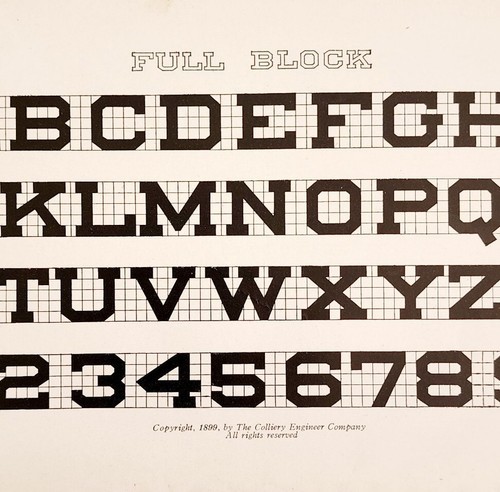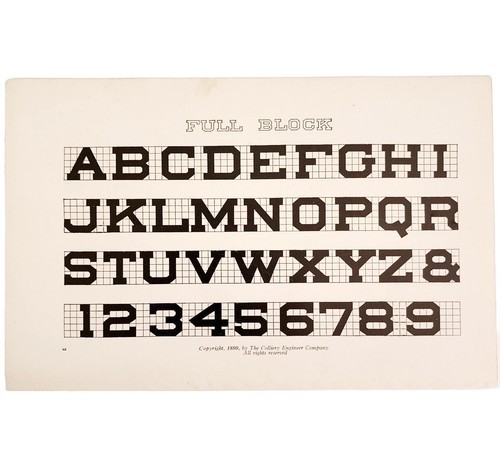
Full Block Font Example 1899 Victorian Craft Supply Art Drawing Ephemera DWKK19
Overall great Victorian antique condition.
Pulled from an architectural book of unknown title and origin.
Typical paper wear... mostly light stains, edge wear..... See pics